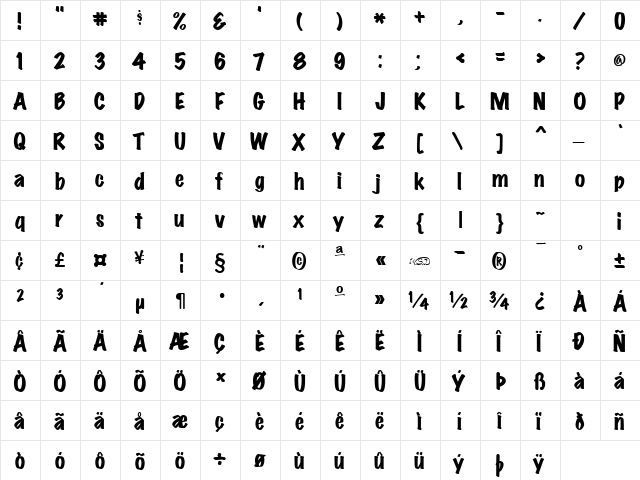
MarkingPenHeavy normal
Design Context for MarkingPenHeavy Typeface
MarkingPenHeavy is a composed and adaptable typeface that performs quietly and consistently across a wide range of design contexts.